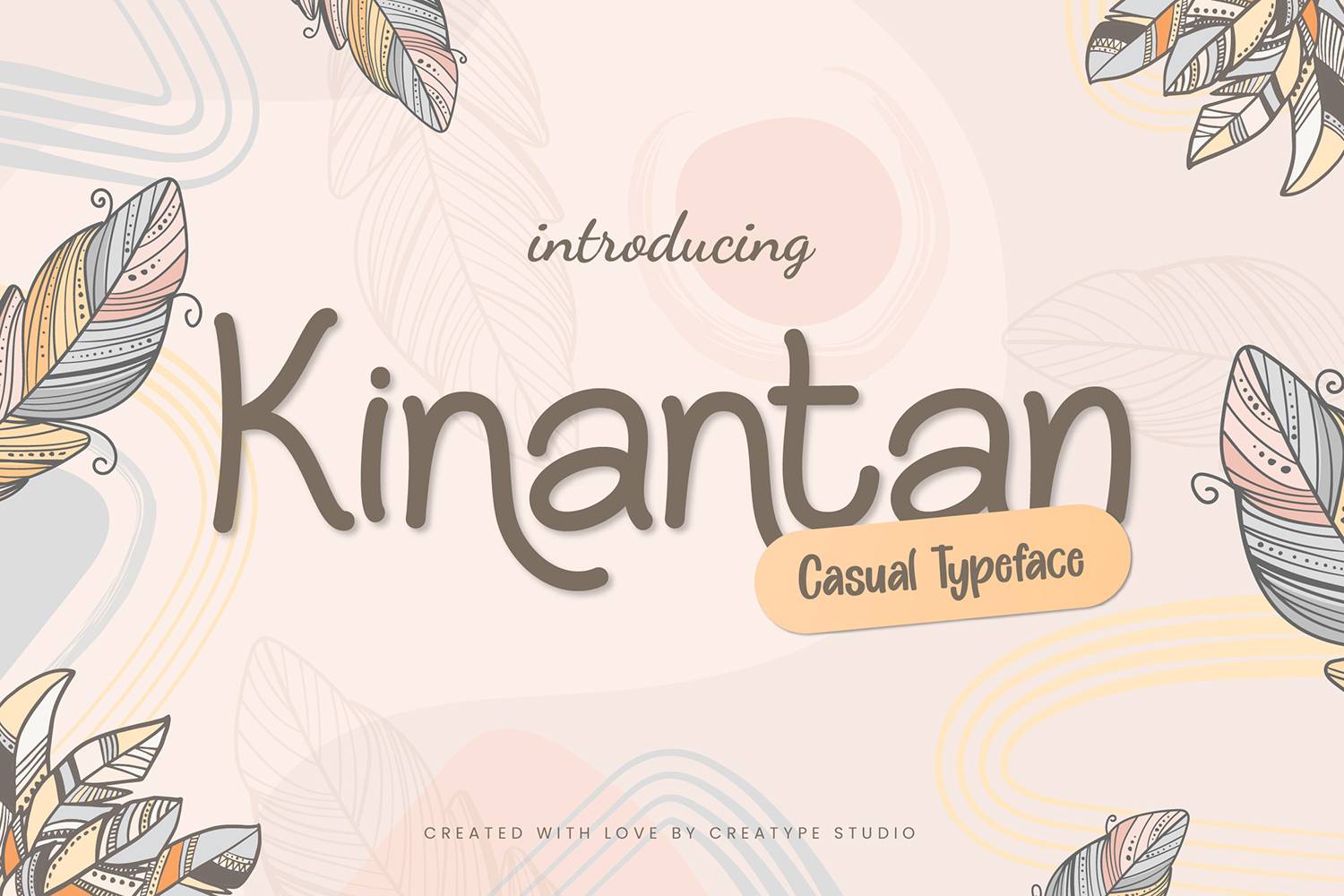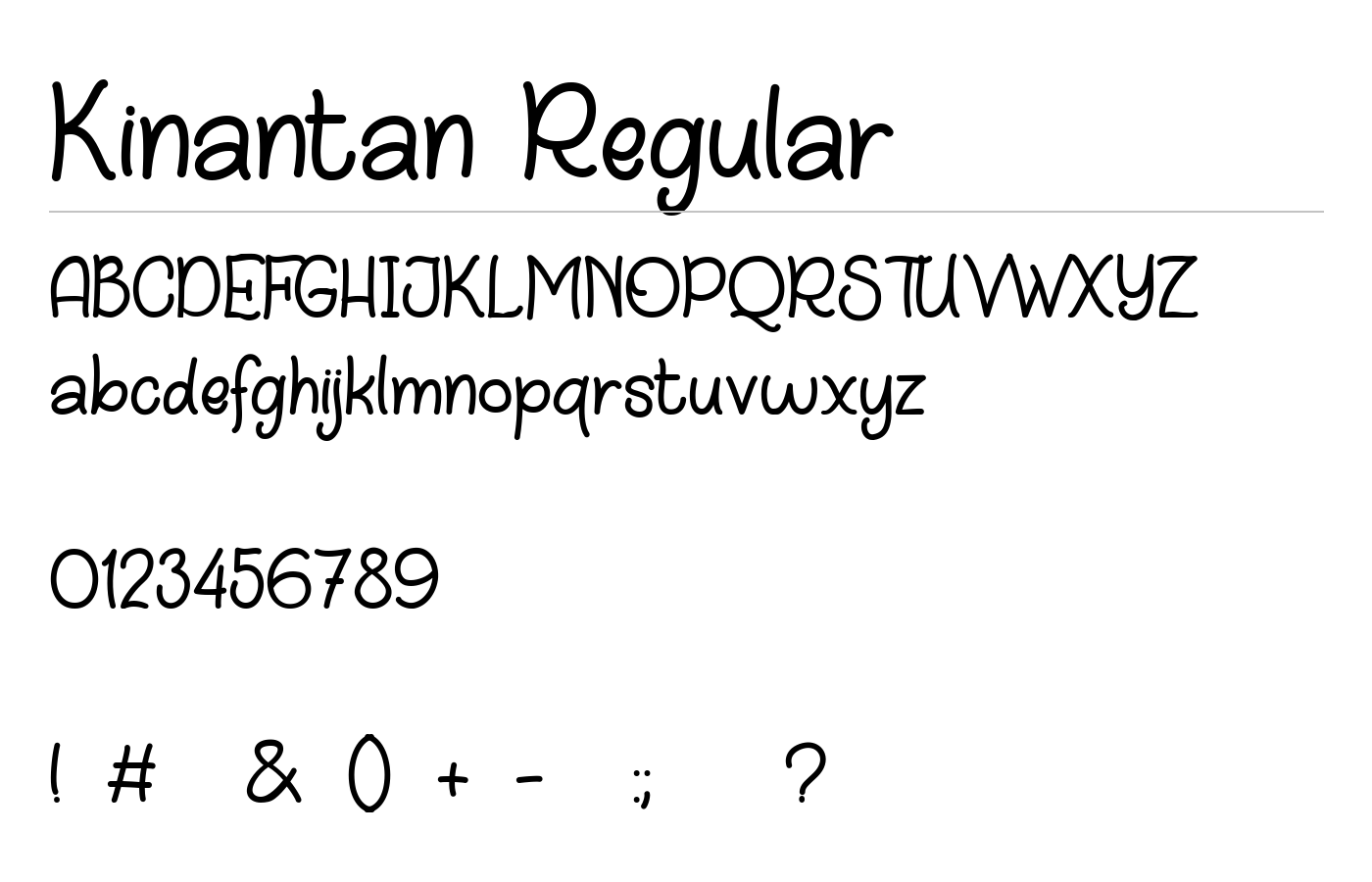
Kinantan Fun & Casual is a playful, handwritten sans serif font with a light weight and medium x-height that gives it an approachable and friendly feel. Its irregular, slightly quirky letter shapes and soft, rounded strokes make it ideal for informal designs, children's projects, and creative branding. This font works best for headlines, logos, and packaging where a casual, fun personality is desired.
Kinantan Fun & Casual Font
About Kinantan Fun & Casual Font
| Font family | Kinantan Fun & Casual Font |